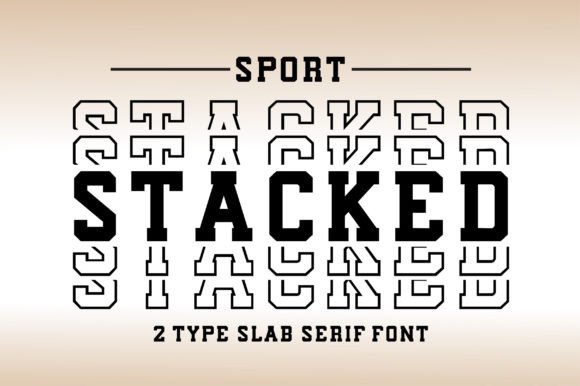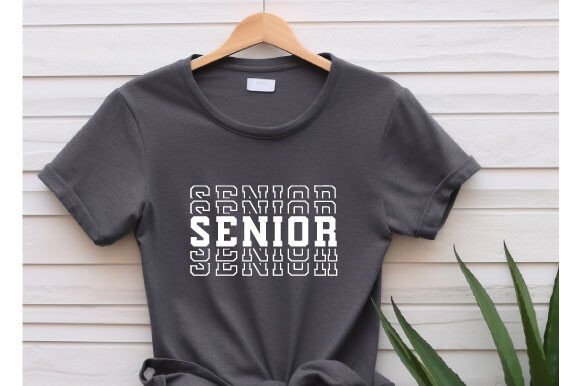
Sport Stacked Font
About the Sport Stacked Font
Make a bold statement with Sport Stacked Font, a powerful and memorable font. Sport Stacked is a bold and assertive slab serif font. No matter the topic, this font will be an incredible asset to your fonts’ library, as it has the potential to elevate any creation.